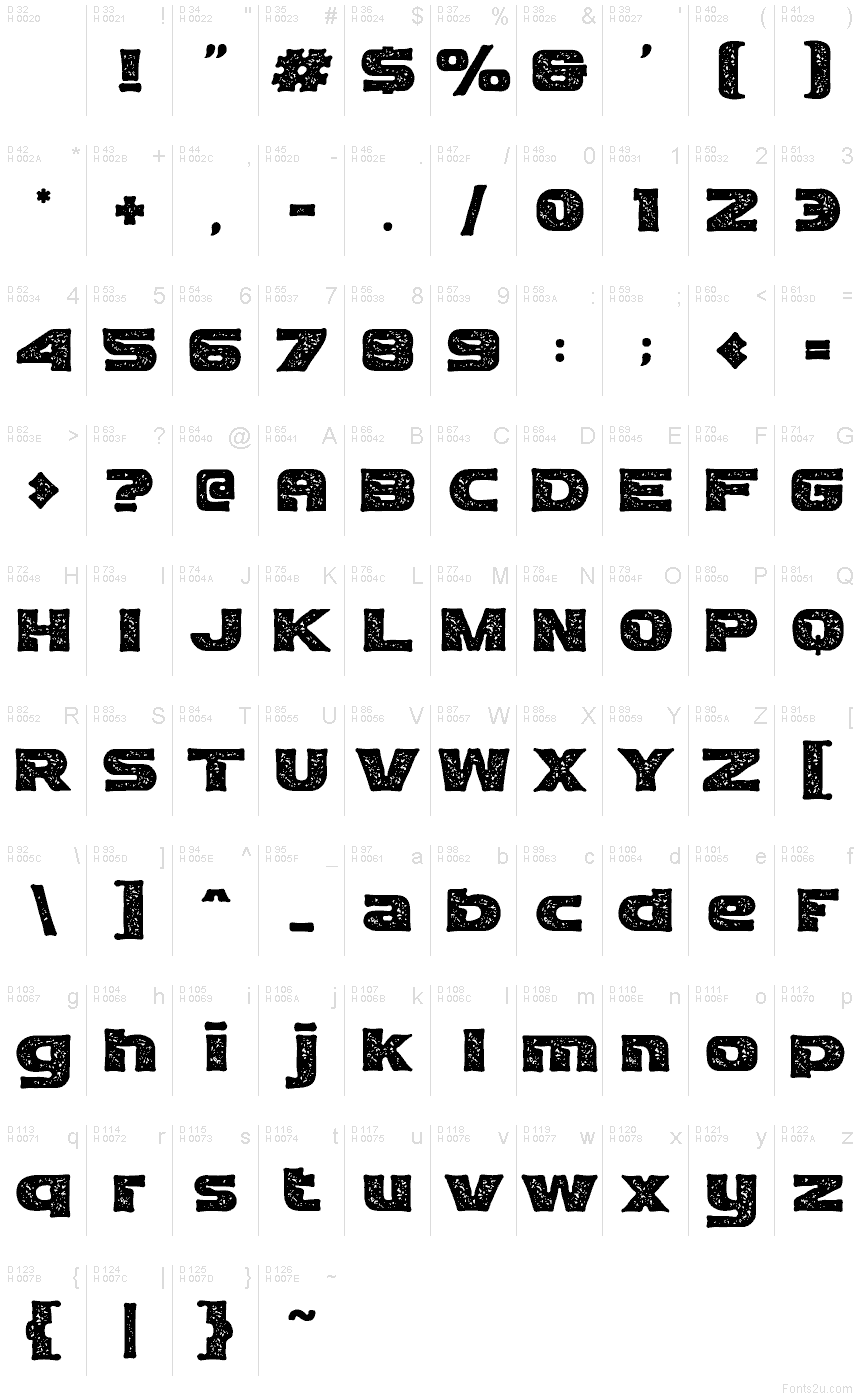
Marseilazi Sport Rough
Marseilazi Sport Rough font by PutraCetol Studio is an expanded bold grunge typeface with a distressed, worn-out appearance of the letters. Each symbol has an artistic irregular outline which gives off the feel of lave prints. The presence is impactful and supports various design styles thanks to its modern vintage vibe.
This free display font can be used for posters, stickers, badges, labels, banners, print on clothes and other fabrics. Its rough appearance makes it also good-looking on album covers or music concert tickets whether in larger or smaller sizes. Pair Marseilazi Sport Rough with light hand lettering fonts for impressive results!